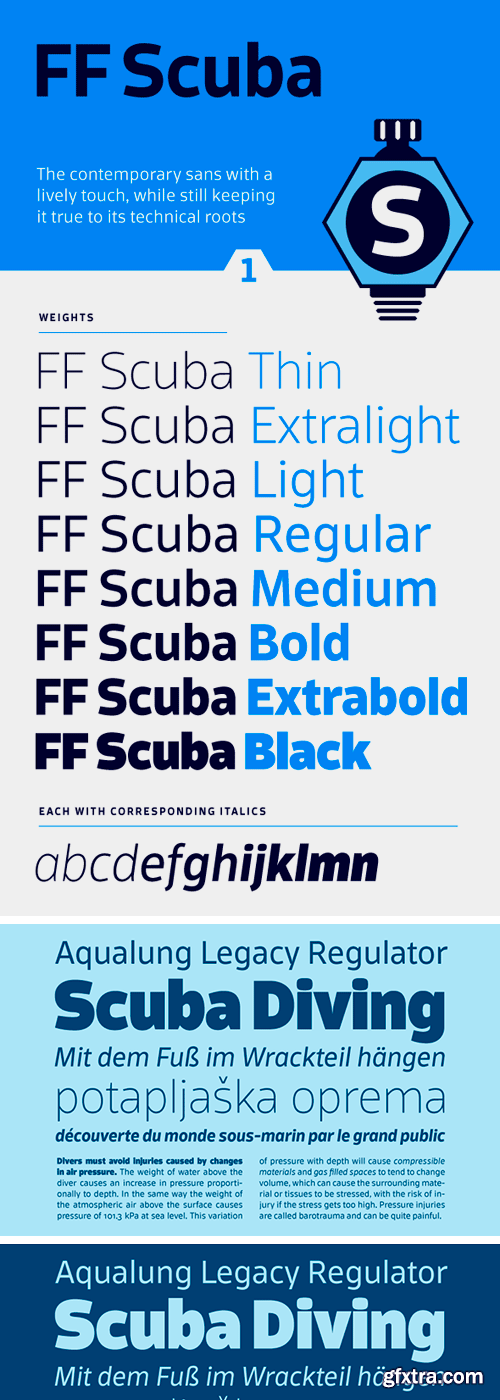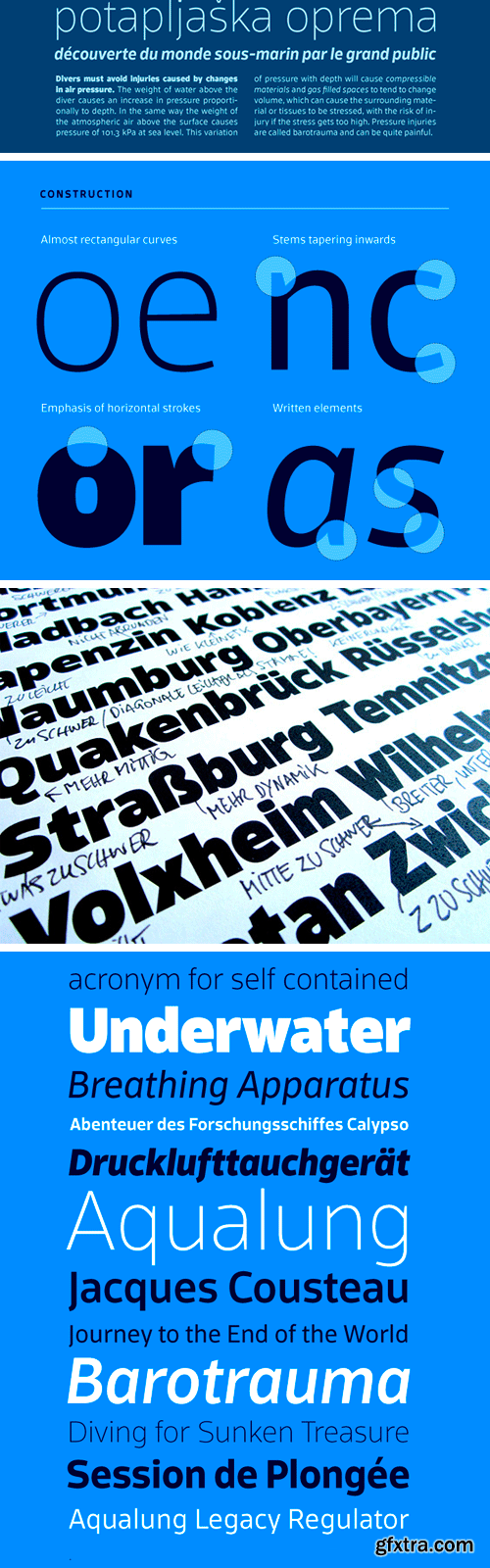
German type designer Felix Braden created this sans FontFont in 2012. The family has 16 weights, ranging from Thin to Black (including italics) and is ideally suited for advertising and packaging, editorial and publishing, logo, branding and creative industries, poster and billboards, wayfinding and signage as well as web and screen design.